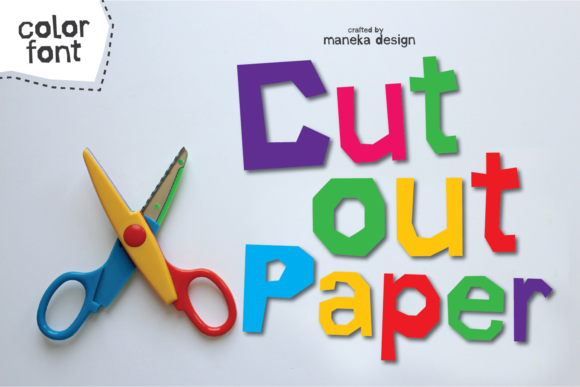
Unleash Your Creativity with Cut out Paper Font
Remember the joy of crafting as a child? Cutting out intricate shapes from colorful paper, watching your imagination come to life? As adults, we often lose that sense of wonder, but with the Cut out Paper Font, you can recapture it. This innovative font is a game-changer for designers, offering a unique and playful twist on traditional typography.
The Cut out Paper Font is a PUA-encoded color font that combines uppercase and lowercase glyphs, numeric, and punctuation, all with a cutout paper style. With 8 alternates colors for the uppercase and lowercase glyphs, you’ll have endless possibilities to express your creativity. Whether you’re a seasoned designer or a crafty enthusiast, this font is sure to inspire your next project.
Cut out Paper Font Key Features
- Unique Characteristics: The font is created using cut-out paper technique, giving it a distinctive, handmade look and feel.
Designer Review: Cut out Paper Font
Overall, I think Cut out Paper Font has a certain whimsical charm to it. The cut-out style creates a unique aesthetic that can be used to add some visual interest to designs. ✨ The font’s distressed edges also give it a handcrafted feel that can be appealing to some designers.
However, I do have some reservations about using this font in certain contexts. ✨ The cut-out style can make the text look cluttered and difficult to read, especially at smaller font sizes. Additionally, the font’s irregular shape can make it challenging to pair with other fonts or design elements.
Here are some specific pros and cons I’ve noticed:
- ✨ Unique and eye-catching aesthetic
- ✨ Can be used to add visual interest to designs
- ⚠️ Can be difficult to read at smaller font sizes
- ⚠️ Can be challenging to pair with other fonts or design elements
Overall, I think Cut out Paper Font is best suited for designs where a whimsical or handcrafted feel is desired. However, it may not be the best choice for designs where readability or consistency are top priorities.
The Cut Out Paper Font is ideal for:
- Designing invitations, cards, and other paper-based materials.
- Creating vintage or distressed text effects.
- Adding a handmade or DIY touch to digital designs.
Are there any specific design considerations when using Cut out Paper Font?
Yes, there are specific design considerations to keep in mind when using Cut out Paper Font. Due to its unique texture and intricate details, this font is best suited for use in bold, large font sizes. Avoid using it for body text or small font sizes, as the details may become lost. Additionally,